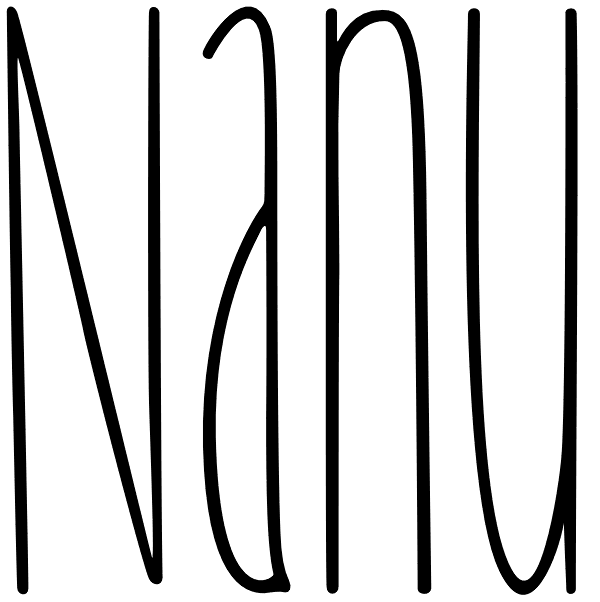
Nanu
Nanu is a hand drawn font where lower and upper cases have the same cap height. It is multilingual and contains a lot of open type features. When purchasing Nanu you get the Nanu Simple Ornaments for free.